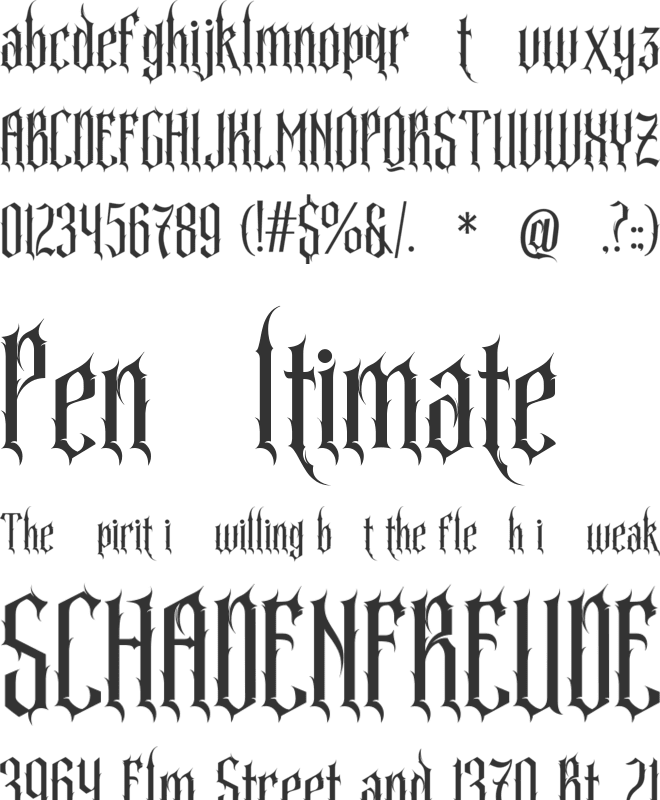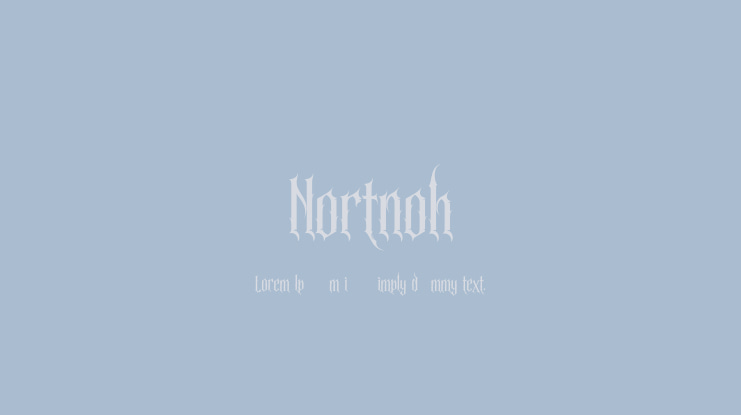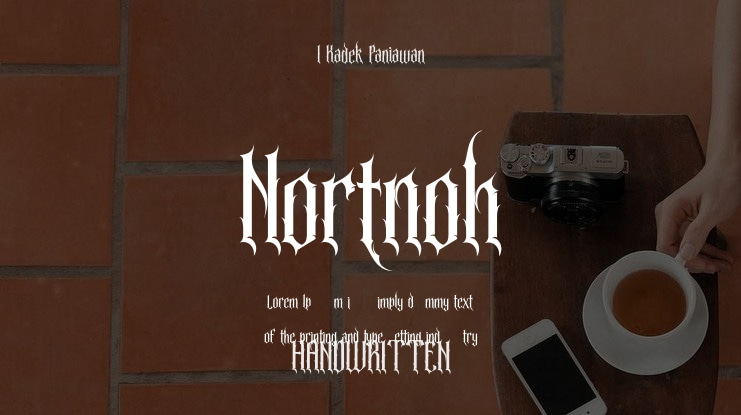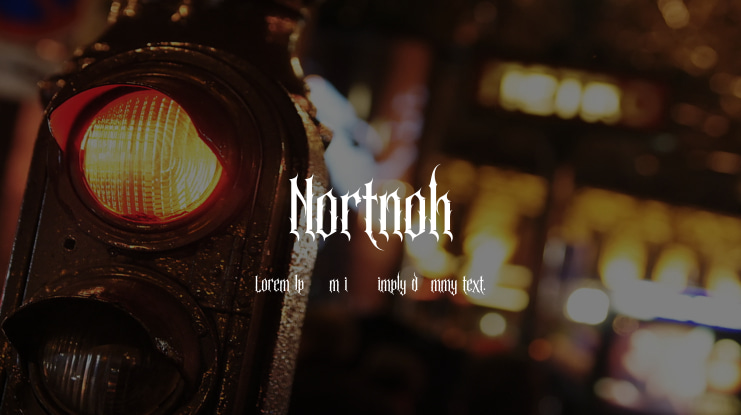
Nortnoh Font
Introducing the "Northnoh Metal Modern Typeface" - where the untamed energy of brutalism converges with the contemporary allure of dead metal aesthetics. Unleash the raw spirit of your designs with this courageous and bold font, radiating strength and attitude.